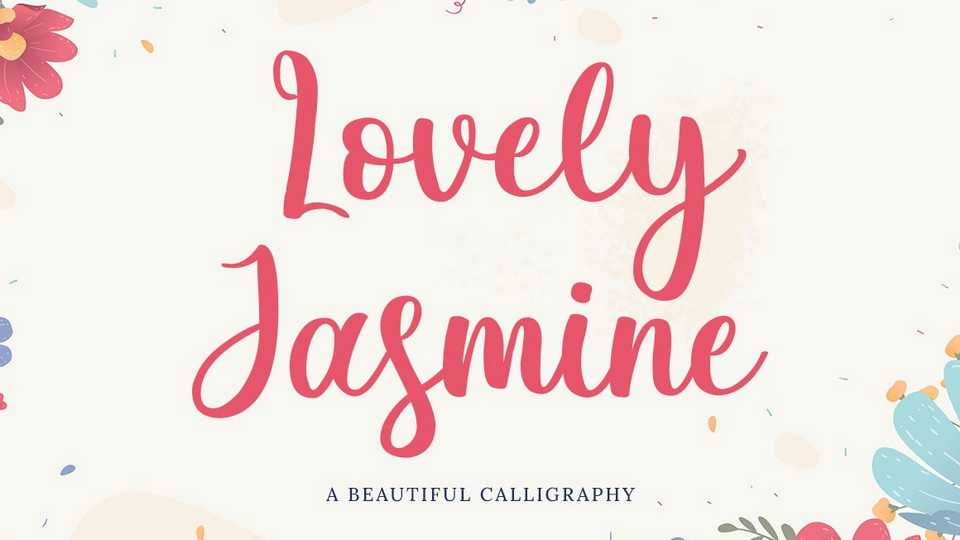
Download Lovely Jasmine font, a sweet modern calligraphy typeface with a beauty feel. Its distinct and well rounded letters make Lovely Jasmine font a masterpiece.